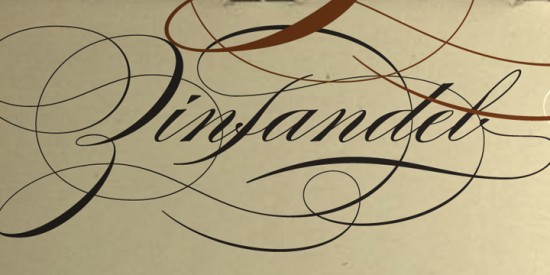
Font generator will convert your text letters using calligraphy font. Free Anayu Calligraphy Font is an elegant whimsical and uniquely shaped lettered handwritten font that look simple but cute font that suits to type on any design.
Calligraphy fancy writing fonts. As indicated by the fashioner the textual style is a tribute to the late nineteenth century American calligrapher Louis Madarasz known as the most dexterous penman the world has ever known. Easy writing font for those who cant do calligraphy. Collection of fonts for Fonts with tails.
Calligraphy is an ancient writing technique using flat edged pens to create artistic lettering using thick and thin lines depending on the direction of the stroke. The height of calligraphy was reached in the middle age where monks developed the narrow writing style called gothic allowing more words to fit on a single line as paper was expensive at the time. Chinese Jpn Arabic Mexican Roman Greek Russian Various.
The full a-z alphabets and numbers for each of the fancy symbol fonts above are too big to copy here but Ill paste a couple here to show you. Calligraphy fonts are widely used in wedding event invitations original logo design religious art films TV etc. Burgues Script made by Alejandro Paul is an ordinary textual style group of calligraphy style.
Click to find the best 256 free fonts in the Fancy Cursive style. According to the designer the font is an ode to the late 19 th century American calligrapher Louis Madarasz known as the most skillful penman the world has ever known. Personal Use Free 2128k downloads.
We have 98 free Fancy Calligraphy Fonts to offer for direct downloading 1001 Fonts is your favorite site for free fonts since 2001. Anayu font looks astonishing on love letters greeting cards logos business cards wedding invitations thank you cards quotes apparel branding magazine advertising product. Looking for Fancy Calligraphy fonts.
You could use it to generate a fancy Agario name yep weird text in agario is probably generated using a fancy text converter similar to this to generate a creative-looking instagram facebook tumblr or twitter. Calligraphy Font is like Name Art Fancy Font Generator which we can create Calligraphy Free is packed with Name Art letter maker Text Art Backgrounds Stickers Smoke Effects Fire Effect. The word calligraphy is derived from greek meaning beautiful writing.
Download calligraphy fonts fancy decorative sansserif and more. Calligraphy fonts are like graffiti and fonts are more aesthetic than any other script fonts. Every font is free to download.
We have 1 free Beach Fancy Calligraphy Font to offer for direct downloading 1001 Fonts is your favorite site for free fonts since 2001. It contains uppercase lowercase and number. After generating your fancy text symbols you can copy and paste the fonts to most websites and text processors.
It usually involves a nibbed pen or brush. Looking for Fancy Cursive fonts. We have 30 free Fancy Handwriting Calligraphy Fonts to offer for direct downloading 1001 Fonts is your favorite site for free fonts since 2001.
Calligraphy Fonts Calligraphy is an artistic writing style where the pressure is varied to create thick and thin lines all in a single stroke. Burgues Script created by Alejandro Paul is a typical font family of calligraphy style.